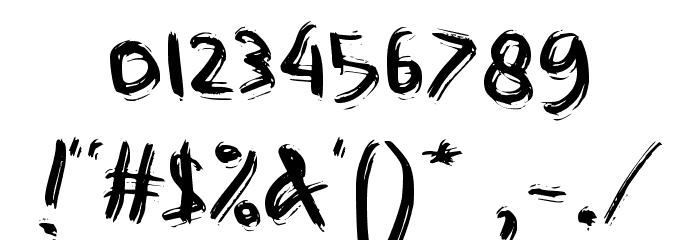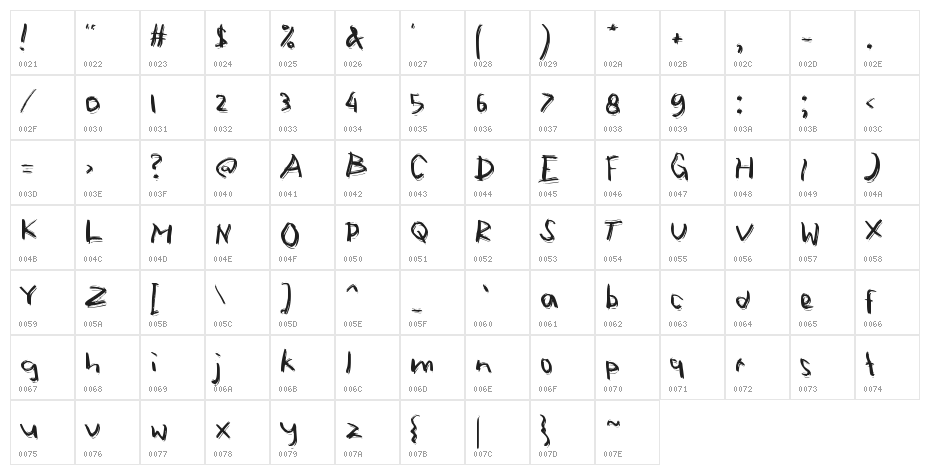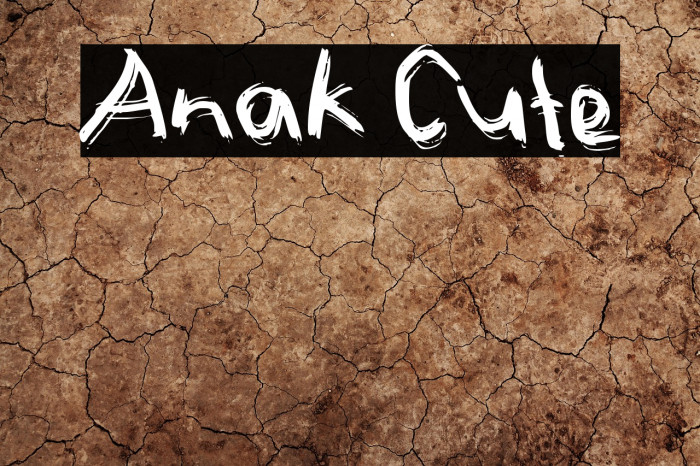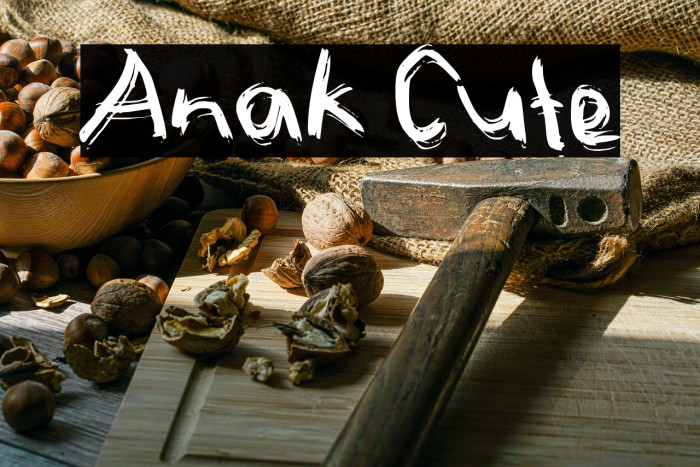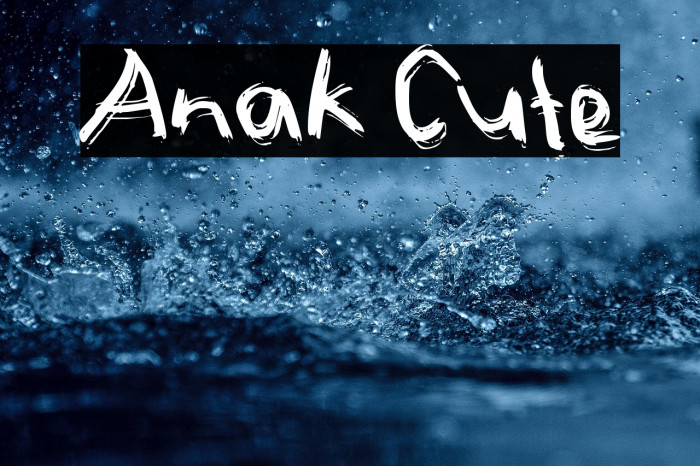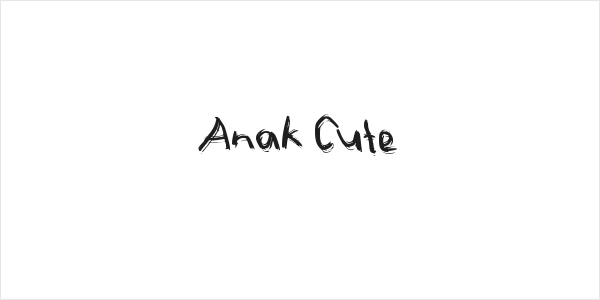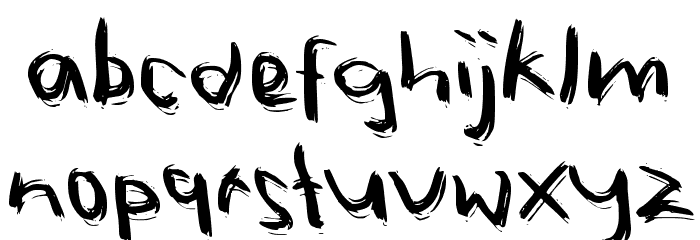
Anak Cute Font
Anak Cute Description
This playful and energetic font features a brush-like, hand-drawn style that exudes a sense of spontaneity and creativity. The strokes are bold and uneven, giving it a dynamic and lively appearance. Each character is unique, with varying thicknesses and angles, creating an informal and artistic vibe. The uppercase letters are robust and assertive, while the lowercase letters maintain a consistent flow, adding to the font's charm. Numbers and special characters follow the same expressive style, making this font versatile for various creative projects.
| Proposed Projects | Ideal for children's book covers, playful branding, artistic posters, and creative social media graphics. |